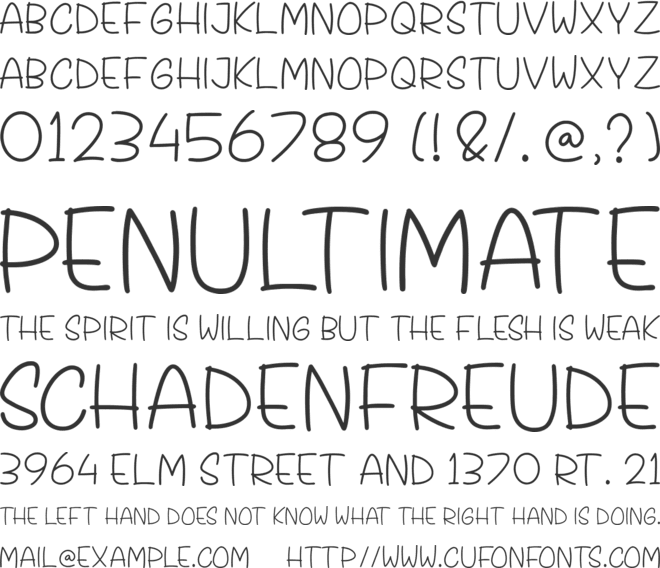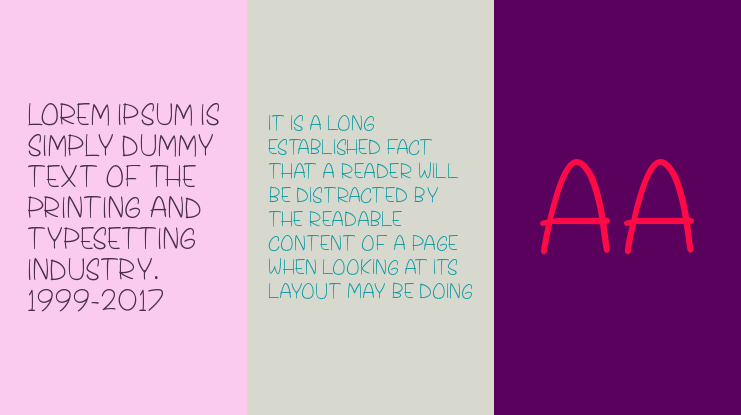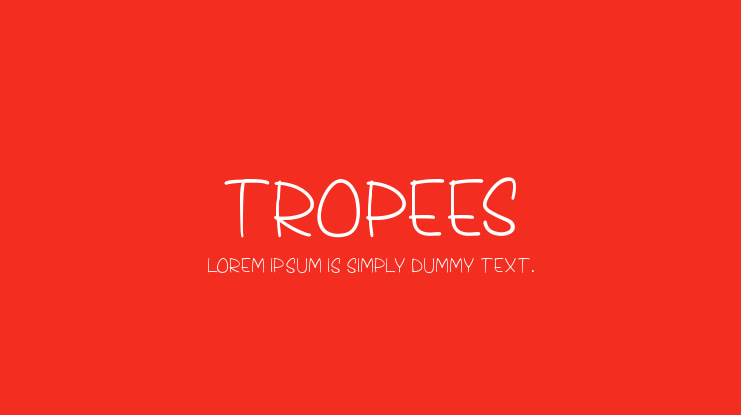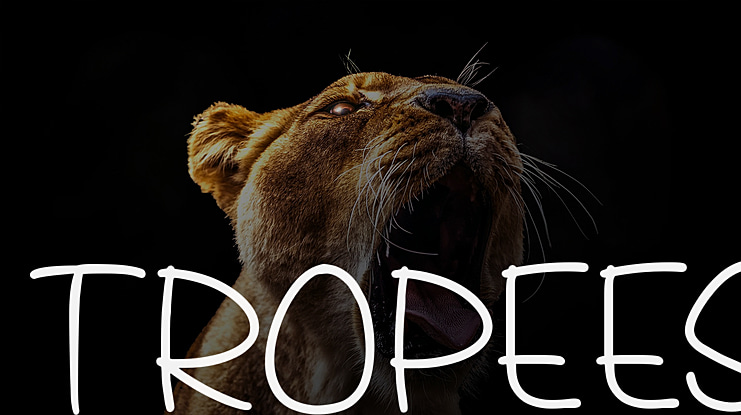
Tropees Font
Tropees is a handwritten font created in August 10th, 2020.
It is wild and fast, and tropical style handwritten strokes. The expressive movement of the letters creates a feeling of tropical and summer vibe for the viewer.